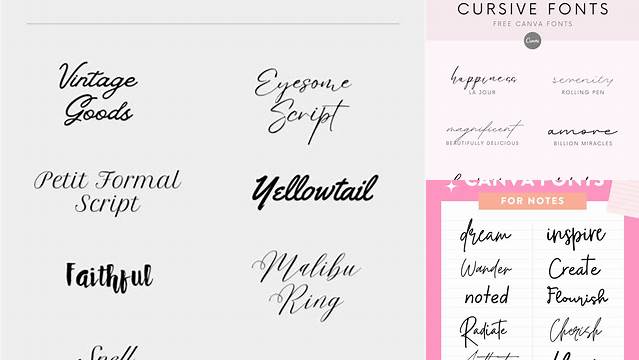
Best Canva Cursive Fonts For Stunning Designs
Discovering the Best Popular Canva Fonts Cursive for Your Designs!
Hey design enthusiasts! Are you looking to add a touch of elegance, personality, or a bit of flair to your Canva creations? Well, you're in the right place! Today, we're diving deep into the world of popular Canva fonts cursive, exploring some of the most beautiful and versatile options available. Choosing the perfect font can make or break your design, so let's find the best ones that will make your projects stand out. Whether you're crafting social media graphics, presentations, or marketing materials, the right cursive font can transform your work from ordinary to extraordinary. So, grab your coffee, get comfy, and let's explore these amazing fonts that will help you elevate your designs! Let's get started and explore the best popular Canva fonts cursive!
What Makes a Great Cursive Font?
Before we jump into the specific fonts, let's talk about what makes a cursive font truly great. First and foremost, readability is key. A cursive font should be beautiful, but if it's hard to read, it's not doing its job. The best cursive fonts strike a balance between style and clarity. Consider how the letters flow together. Does the font have consistent letter connections, or are there awkward gaps? Look for fonts that are well-crafted and easy on the eyes, ensuring your message is easily understood. Then, it is essential to consider the versatility of the font. Can it be used in different contexts? Does it work well for headlines, body text, or both? A great cursive font should be adaptable to various design needs. Another key factor is the personality of the font. Does it feel modern, vintage, playful, or sophisticated? The personality of the font should align with your design's overall message and brand identity. For example, a whimsical font might be perfect for a children's brand, while an elegant script font would be ideal for wedding invitations. Lastly, consider the availability of the font. Is it free, or does it require a subscription? Does it have various weights and styles, such as bold, italic, and regular? These options allow you to customize the font to fit your design perfectly. With these elements in mind, let's dive into some top choices! Keep these aspects in mind as you read, and you'll be equipped to select the perfect cursive font for all your projects.
Top Cursive Fonts to Try in Canva
Now for the fun part! Here are some of the most popular and stylish cursive fonts you can find and use in Canva, plus some quick tips on how to use them. First, we have Playlist Script. Playlist Script is a very popular choice. It has a friendly, approachable vibe. It works great for headings and short phrases, lending a casual yet stylish touch to your designs. You can use it in logos or social media posts to give a warm and personal feel. Then, we have Dancing Script. This font is another free option that's perfect for a range of projects, from invitations to greeting cards. Its slightly bouncy appearance adds a playful feel, making it a great choice for anything that needs a touch of fun and whimsy. Great Vibes is an elegant and sophisticated script. It's ideal for designs that need a touch of class, such as wedding invitations, branding materials, and elegant social media posts. It's best used for headlines or short text, as it can be a little harder to read in long paragraphs. Try pairing it with a clean sans-serif font for the body text to create a balanced design. The next on the list is Yellowtail. This bold and modern script font has a unique, flowing style that really grabs attention. It is great for headlines, logos, and short promotional text. If you're looking for something that makes a statement, this is the font for you. Remember to use it sparingly to keep it from overwhelming your design. Lastly, we have Allura. Allura is a versatile and classic script font that works well in a variety of contexts. Its smooth, flowing style makes it perfect for both headlines and short text, providing an elegant and readable option. With these options, you are well on your way to creating stunning designs!
Tips for Using Cursive Fonts Effectively
Okay, now you know some great cursive fonts to try. But how do you use them effectively? Let's go over some tips and tricks to ensure your designs look their best. Consider the context: Cursive fonts work best in certain situations. Avoid using them for large blocks of text, as they can be difficult to read. Instead, reserve them for headlines, quotes, short phrases, or design accents. Make sure the font complements the overall style and message of your design. Next, pair with other fonts. Cursive fonts often look best when paired with a clean sans-serif or a simple serif font. This contrast can create a balanced and visually appealing design. Think about how different fonts work together. Do they complement each other, or do they clash? Adjust the size and spacing. Cursive fonts often require adjustments to their size and spacing to ensure readability. Increase the letter spacing if the letters are too crowded, and experiment with different sizes to find what works best. Pay attention to kerning (the space between individual letters) and leading (the space between lines of text) to create a polished look. Use sparingly: Cursive fonts can be very eye-catching, so use them sparingly. Too much cursive can overwhelm the design and make it hard to read. Use cursive fonts for emphasis or to add a touch of elegance, rather than as the primary text. Remember that less is often more. Test your designs. Before you finalize your design, make sure to test it out in different contexts. Print it out, view it on different devices, and get feedback from others. This will help you catch any readability issues or design flaws before it's too late. Keep these tips in mind, and you'll be well on your way to creating stunning designs that capture the attention of the viewer.
Where to Find More Cursive Fonts in Canva
Canva offers a vast library of fonts, including a wide selection of cursive fonts. Finding these fonts is easy. Simply go to the text tool in Canva, and when you type in your text, a drop-down menu of fonts will appear. You can browse through the font library or search by name or style. In the search bar, you can try searching for “cursive,” “script,” or “handwritten” to narrow down your options. You can also filter your search based on different styles, such as modern, vintage, or elegant. Another useful feature is the ability to see font pairings. Canva often suggests font pairings that work well together, making it easier to create visually appealing designs. When you find a font you like, you can save it to your brand kit or mark it as a favorite for easy access later. You can also explore external resources. While Canva has a great selection, you can also find many other resources for inspiration. Websites like Google Fonts and Font Squirrel offer a vast collection of free fonts. Just make sure to check the licensing terms before using them in your designs. If you are looking for more options, you can consider using Canva Pro, which gives you access to a wider variety of fonts and features. You can also upload your fonts if you have a specific font you want to use. These strategies will help you explore the world of fonts and find the perfect fit for all your projects. There are so many options, so don't be afraid to experiment and discover what you like best!
Best Practices for Using Cursive Fonts
Using cursive fonts effectively involves adhering to several best practices to ensure your designs are both beautiful and legible. First, prioritize readability. Always make sure your cursive font is easy to read, especially when it comes to longer text. While cursive fonts are great for aesthetics, if readability is compromised, the message will not reach its audience. Use cursive fonts for short, impactful phrases, headings, and quotes, where their unique style can shine without causing eye strain. Then, ensure context and consistency. Make sure the use of the font is appropriate for the design's context. Consider the tone and message you want to convey and make sure the font's style aligns with those goals. If you are designing a formal event, a more elegant script font would be fitting. Then, use a modern font for a casual approach. Also, consistency helps create a cohesive look. Maintain a consistent use of your chosen fonts throughout the project. Next, consider font pairing and hierarchy. Choose fonts that complement each other. Pair a cursive font with a clean sans-serif or a simple serif to achieve visual harmony. Use the cursive font for the primary headline and the other font for body text to ensure clarity. Create a clear visual hierarchy. This helps guide the viewer’s eye through the content, indicating importance and order. Next, pay attention to spacing and size. Adjust kerning, the spacing between letters, and the leading, or line spacing, to make sure your text is legible and visually balanced. Use a larger size for cursive fonts to make it easier to read, especially on digital screens. Finally, test and iterate. Test your designs on different devices and platforms to ensure the text remains legible and the font looks appealing in all settings. Ask for feedback from others to gain different perspectives. Be willing to make adjustments based on the results of your tests and the input you receive. By adhering to these best practices, you'll be able to use cursive fonts to create beautiful and highly effective designs.
So, there you have it, guys! A deep dive into the world of popular Canva fonts cursive. By understanding what makes a great cursive font, exploring some top choices, and following the tips we covered, you're now well-equipped to create stunning designs that capture attention and convey your message effectively. Remember, the key is to find the right balance between style, readability, and personality. Experiment with different fonts, play with pairings, and always consider the context of your design. Keep practicing and have fun creating! I can't wait to see the amazing designs you create using these amazing cursive fonts. Happy designing!